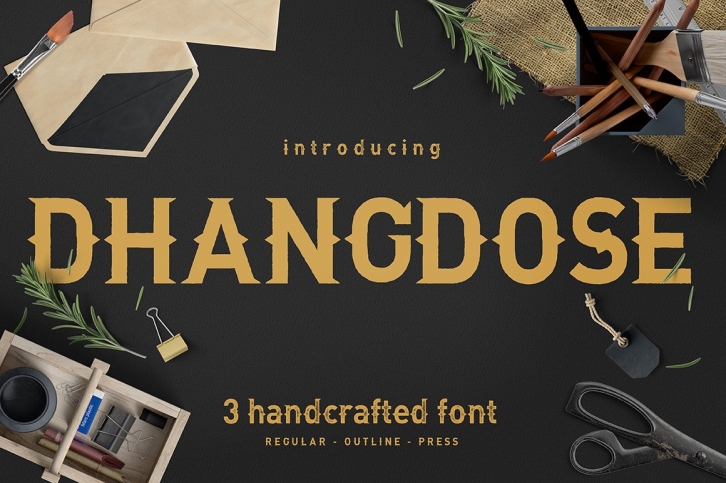
Dhangdose is a unique font that combines simple vintage feels. Inspiration during the production of this font came from classic modern culture, and the results are 3 optional styles which are the regular, outline and press style. Use them on their own or increase the options by combining them to give your designs an extra oomph.